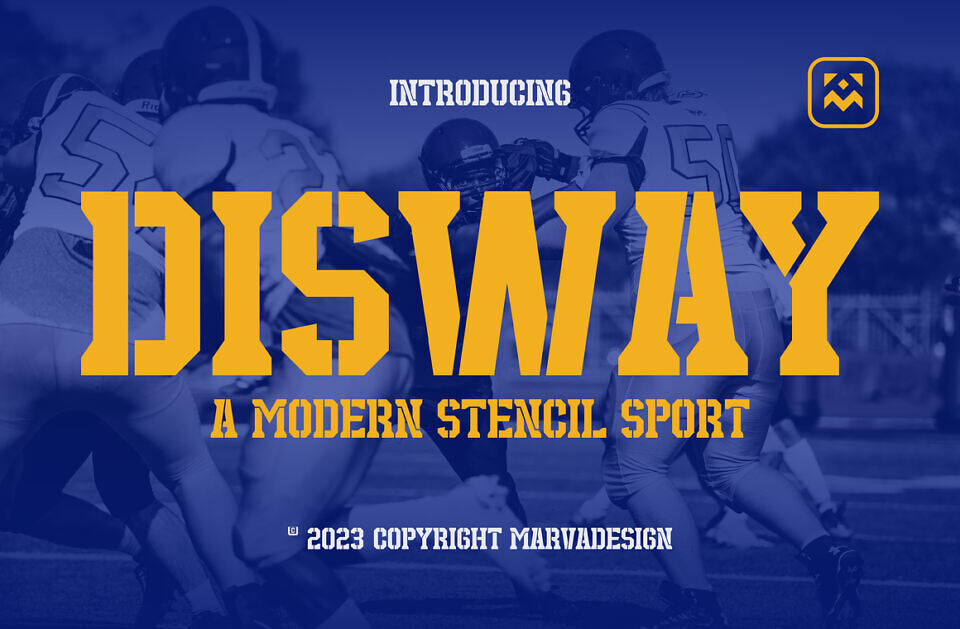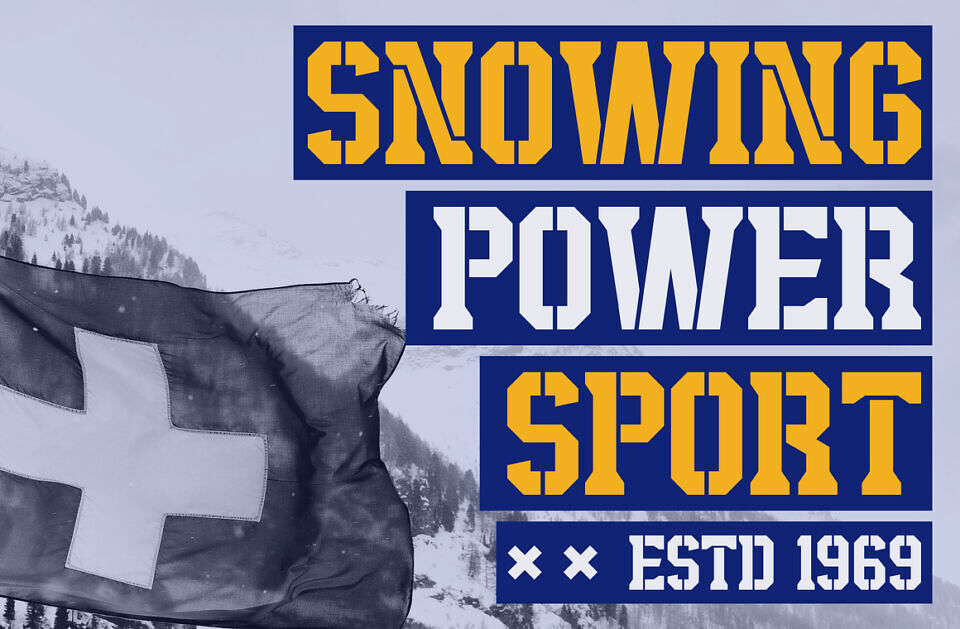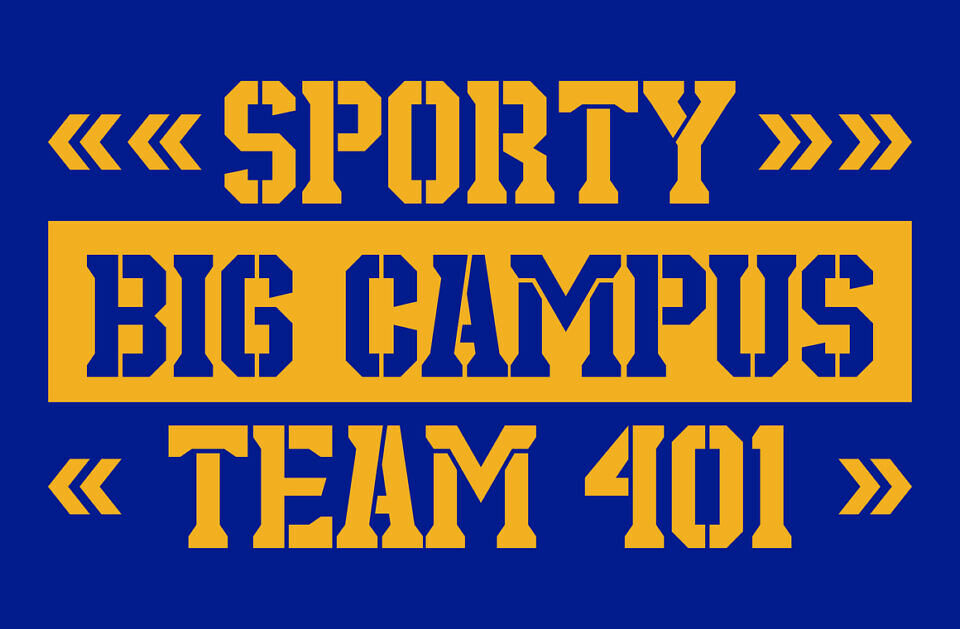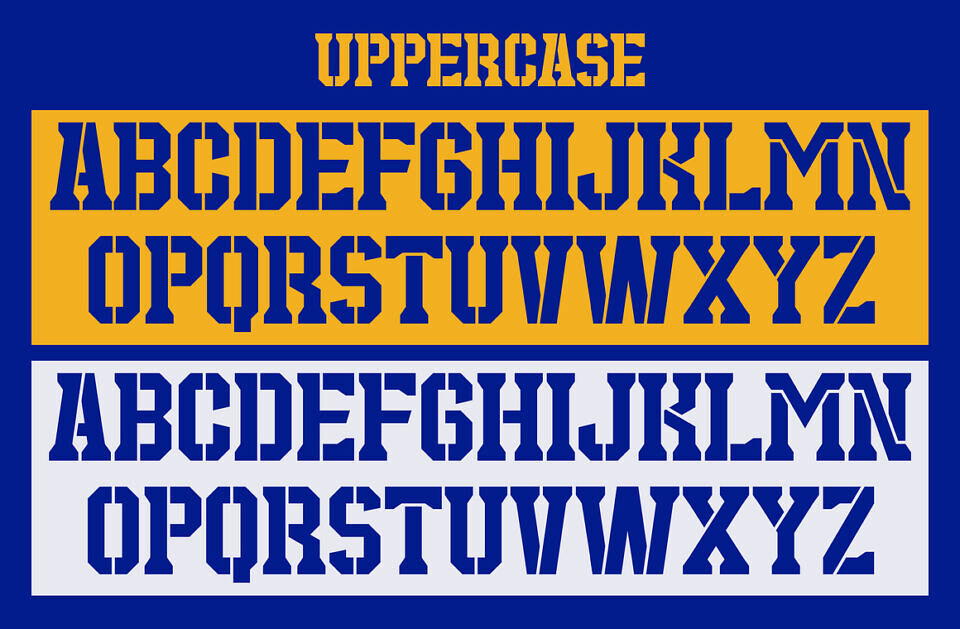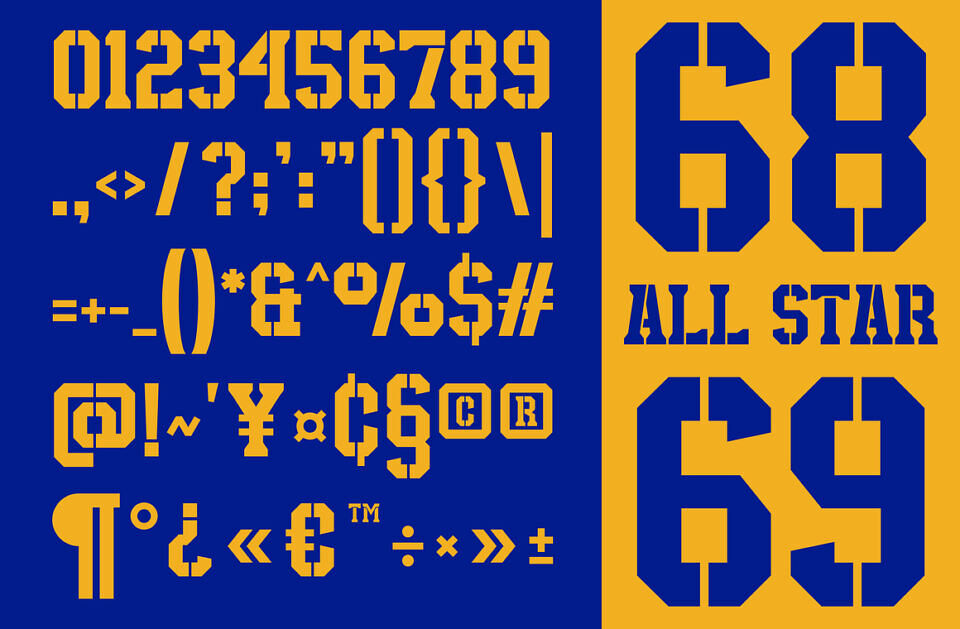
Disway Font
Disway is a a bold, authentic modern display font by Marva Type. The font is suitable for any branding project like logo, template Design, Product and many more. Outstanding in a wide range of contexts.